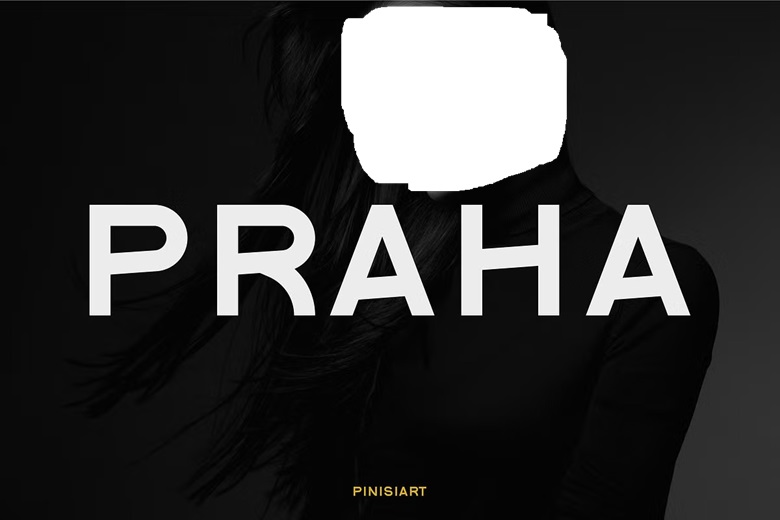
Praha Font
Praha is not just a typeface, but it is the expression of luxury and modernity and the style that is timeless. The PRAHA is designed in a streamlined fashion with balanced proportions and a slight touch of European style that follows the nature of minimal elegance whilst being flexible in various design requirements. The most interesting feature of this font is that it can be both bold and sophisticated, which is why it can be a strong tool in branding, luxurious packaging, posts on social networks, and editorial designs.
Every letterform has accuracy and assurance and makes your projects have a sophisticated professional look that makes any visual piece soar. Be it in the quest to create a classy Instagram graphics, a refined product branding or effective advertising, this font will give the right balance between beauty and readability.
Praha Sans Serif Font